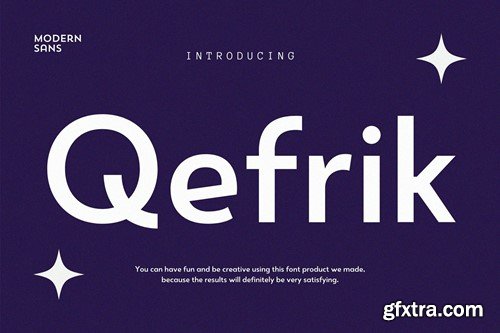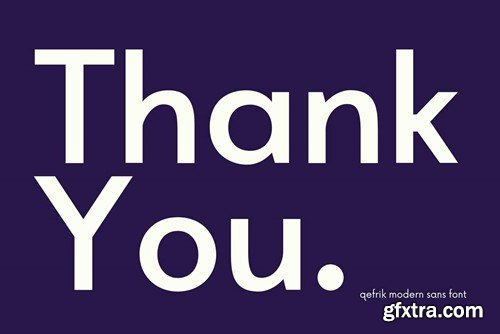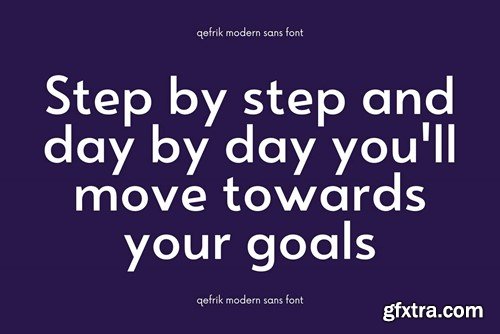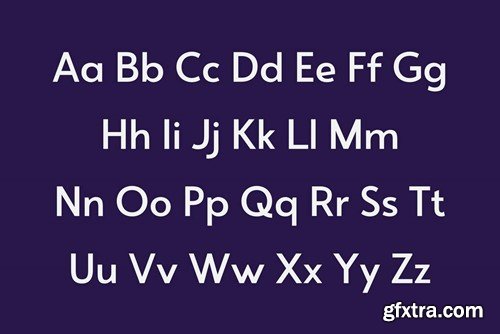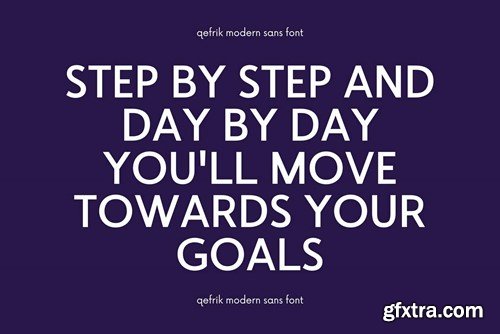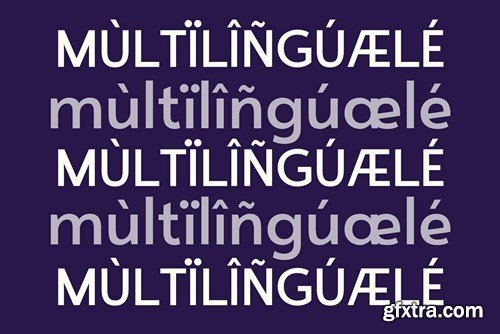
Quhefrik Modern Sans字体 8M4KY8A
Qhefrik Modern Sans Font
A beautiful series of letters is encapsulated in this 'Qhefrik' font. Neat lettering is perfect for writing needs that are modern and pleasing to the eye, there is a Modern impression but still looks Elegant when used for writing. Tidiness in the manufacture of each letter, is our top priority. You can have fun and be creative using this font product we made, because the results will definitely be very satisfying. What do you get: -OTF -TTF -WOFF This font is ready to be used to support your next design needs. Thank You!